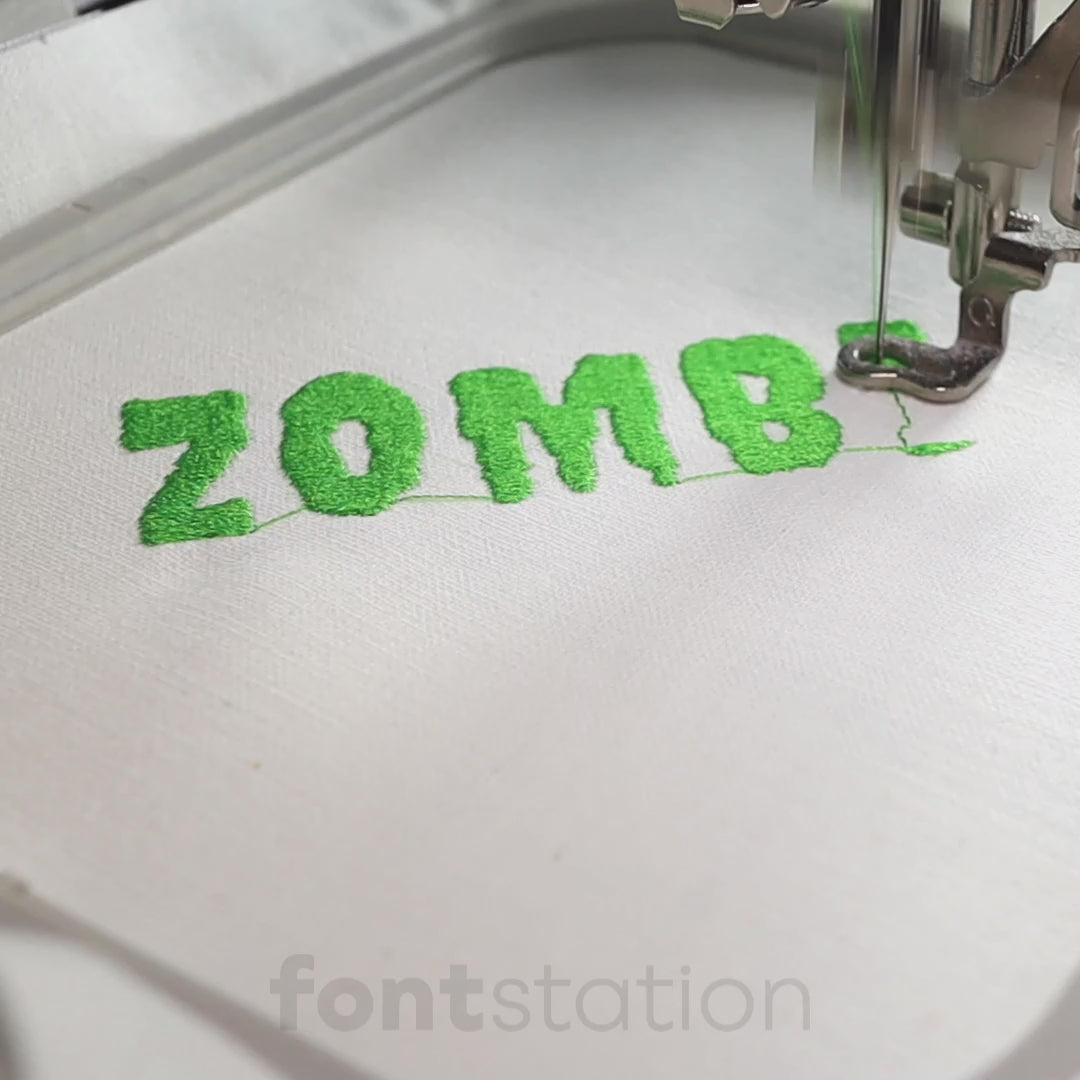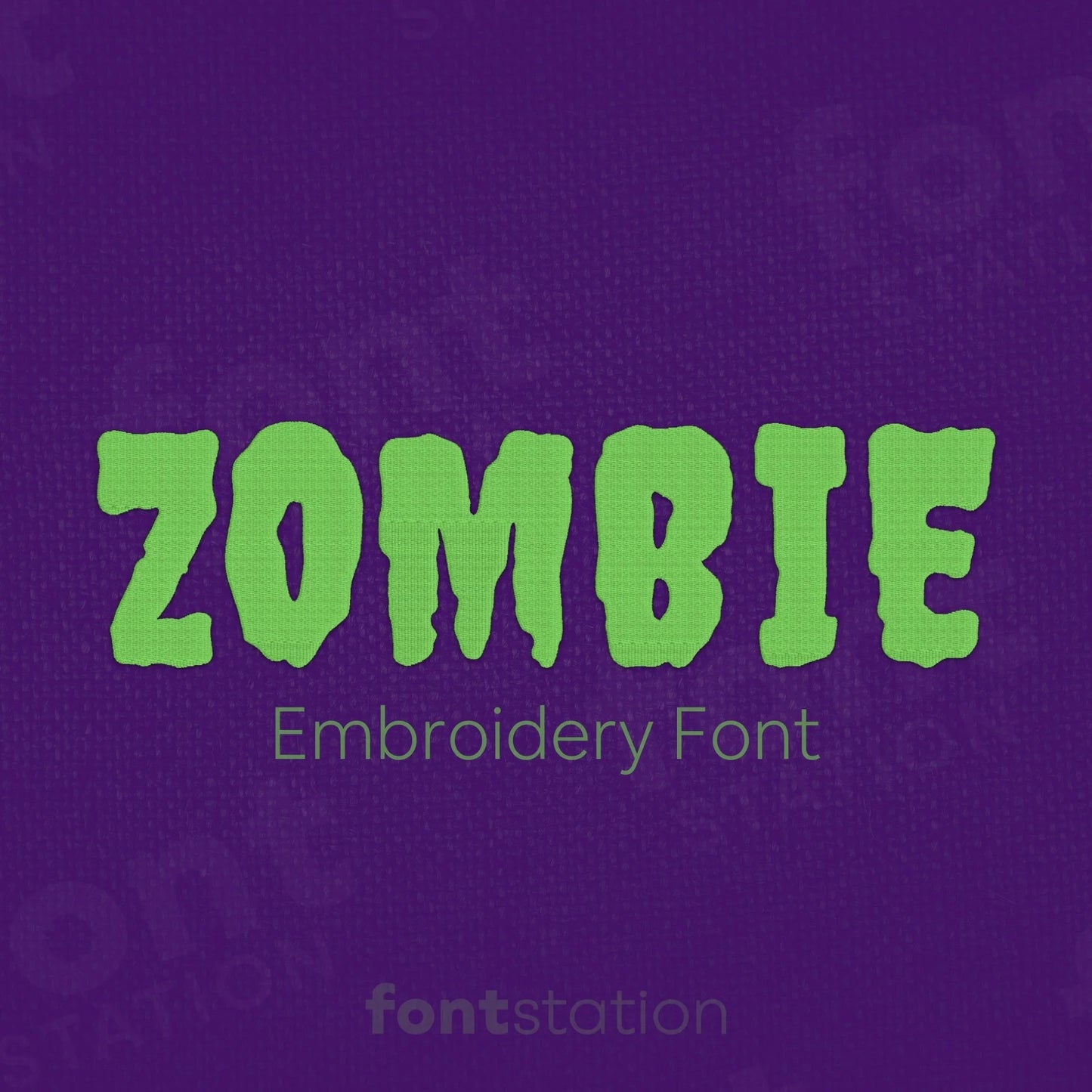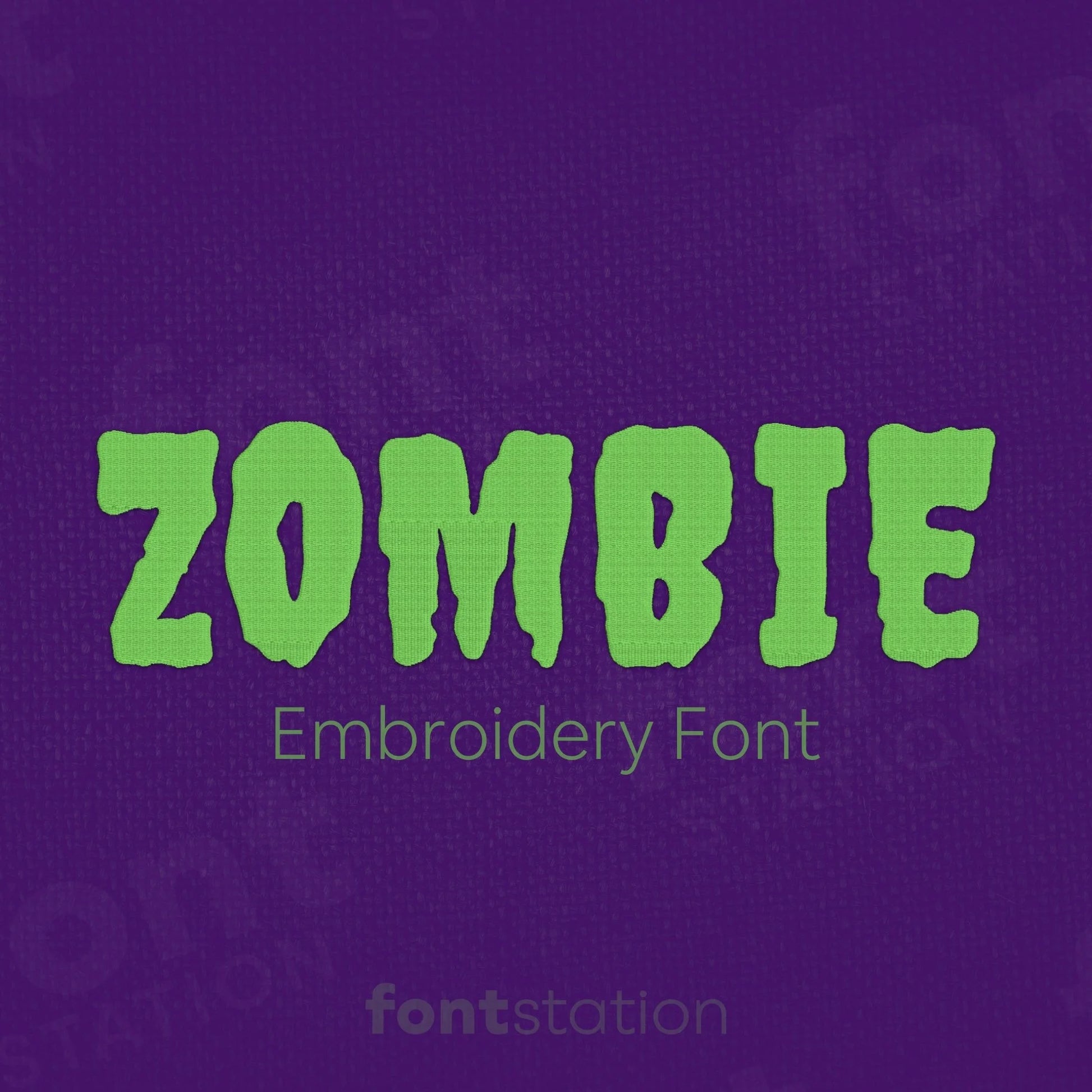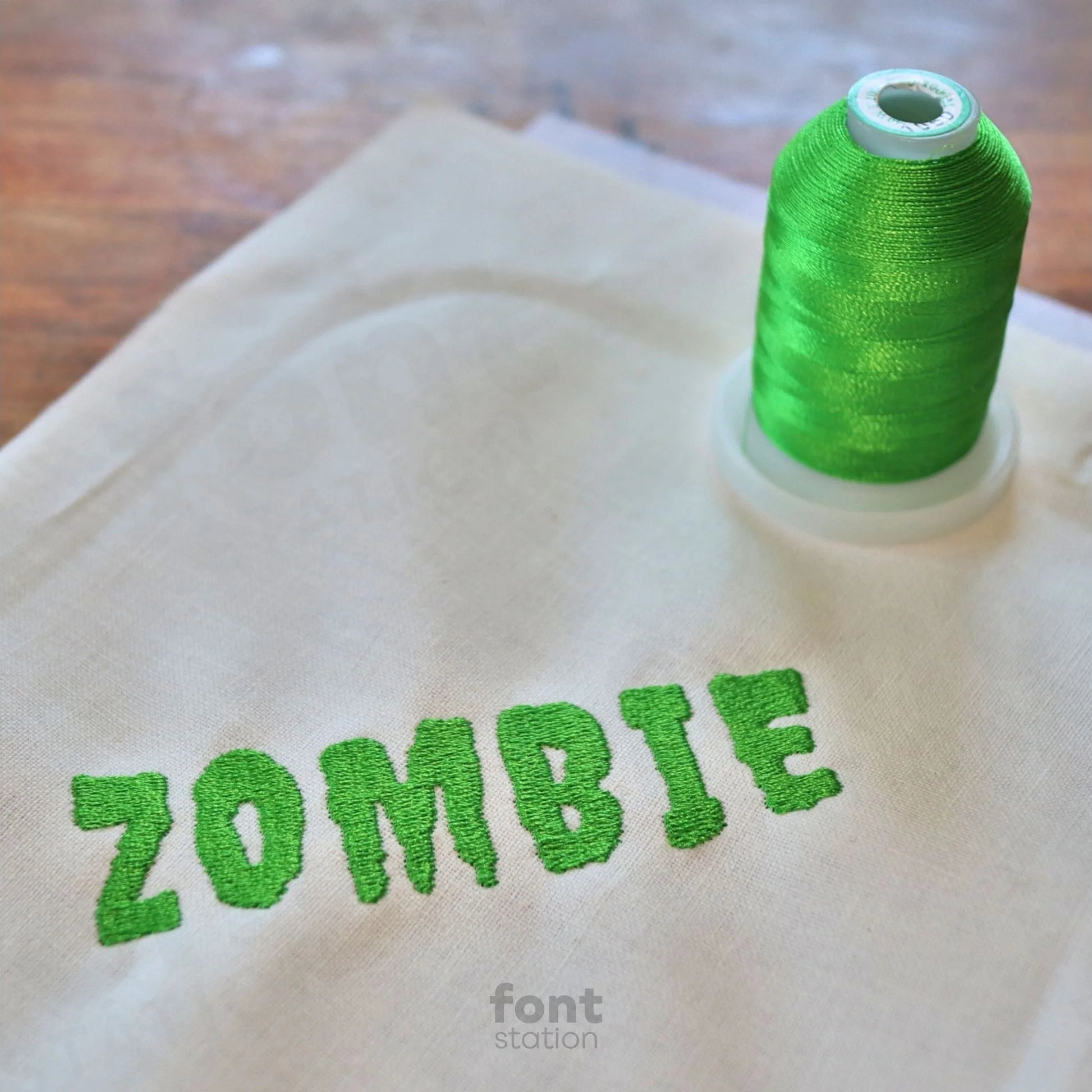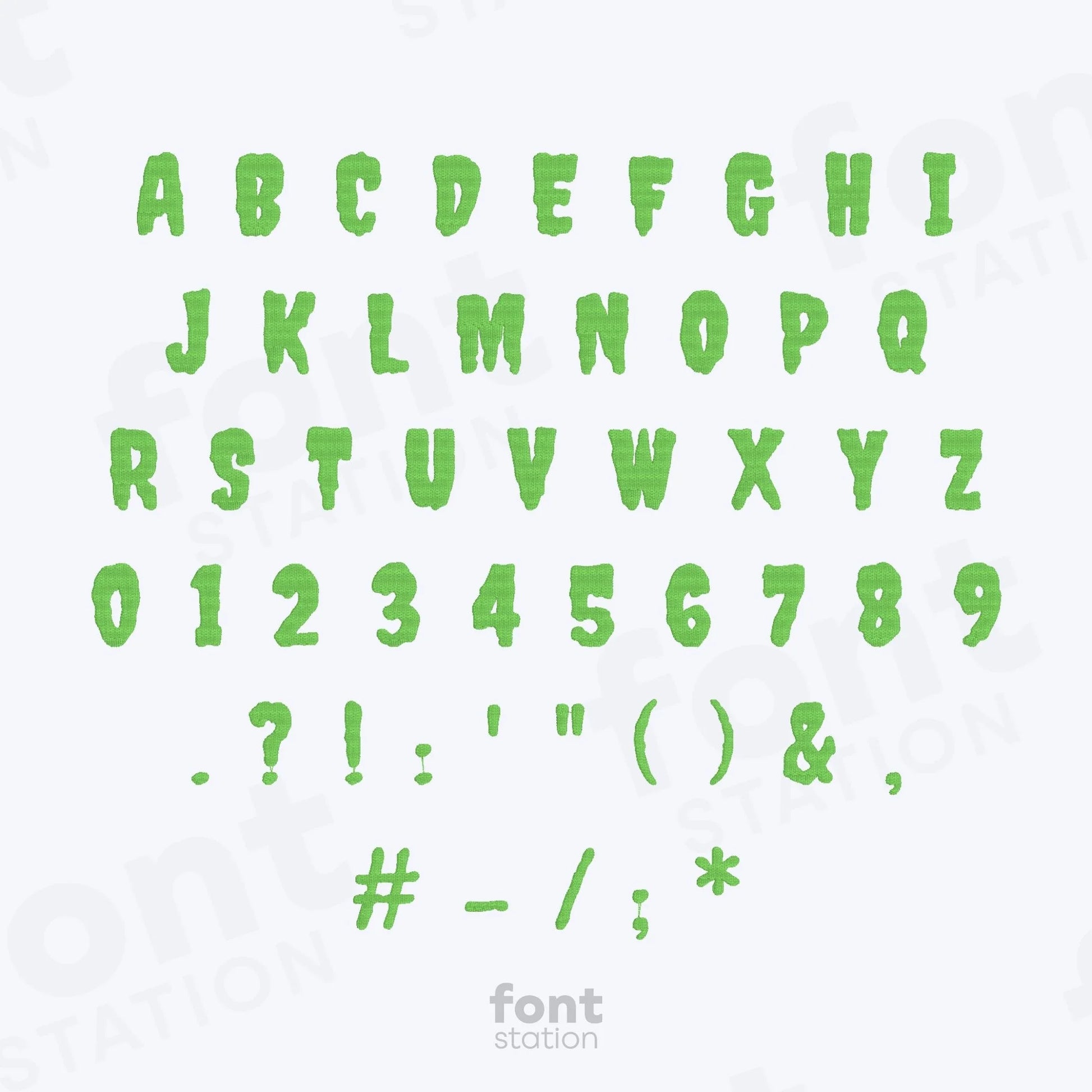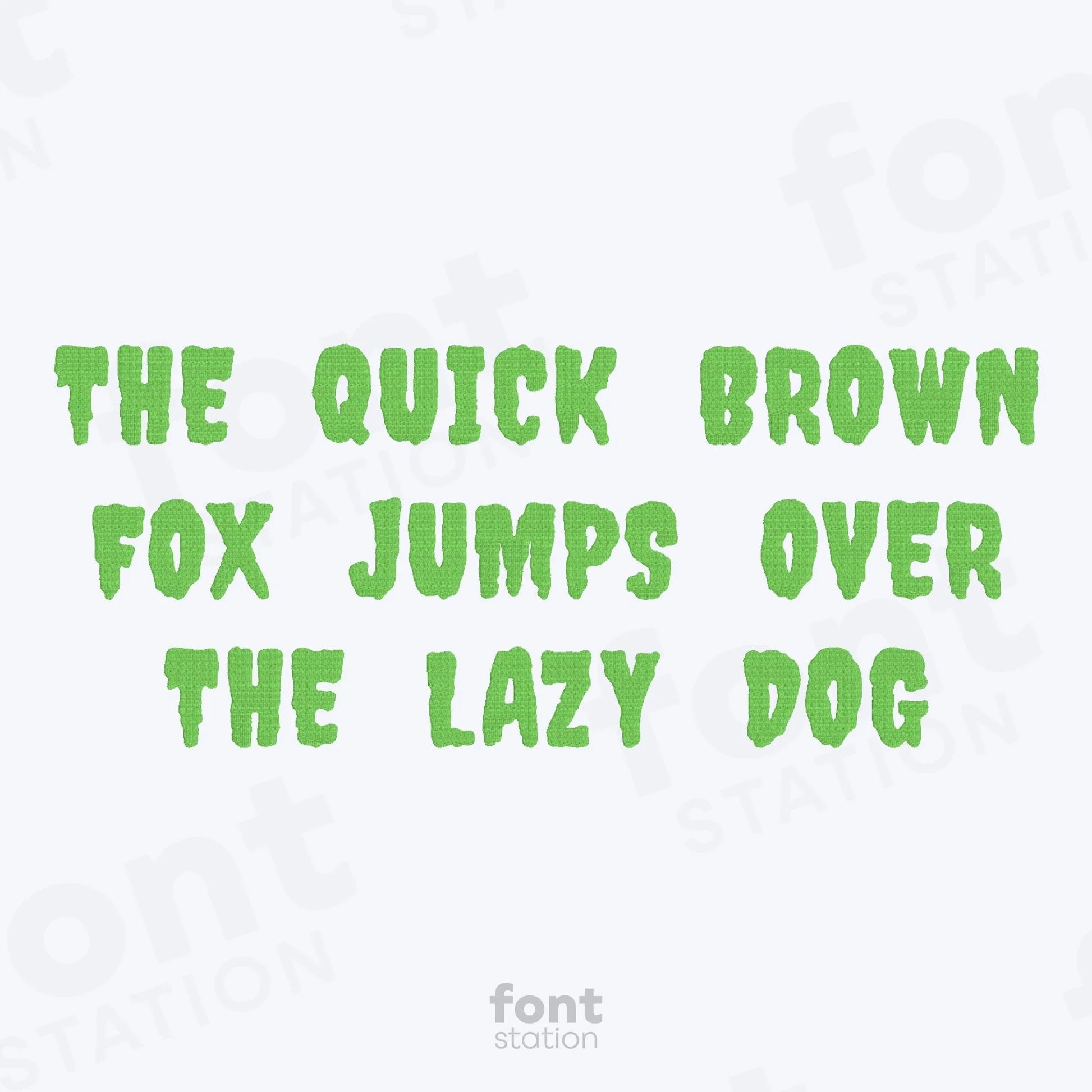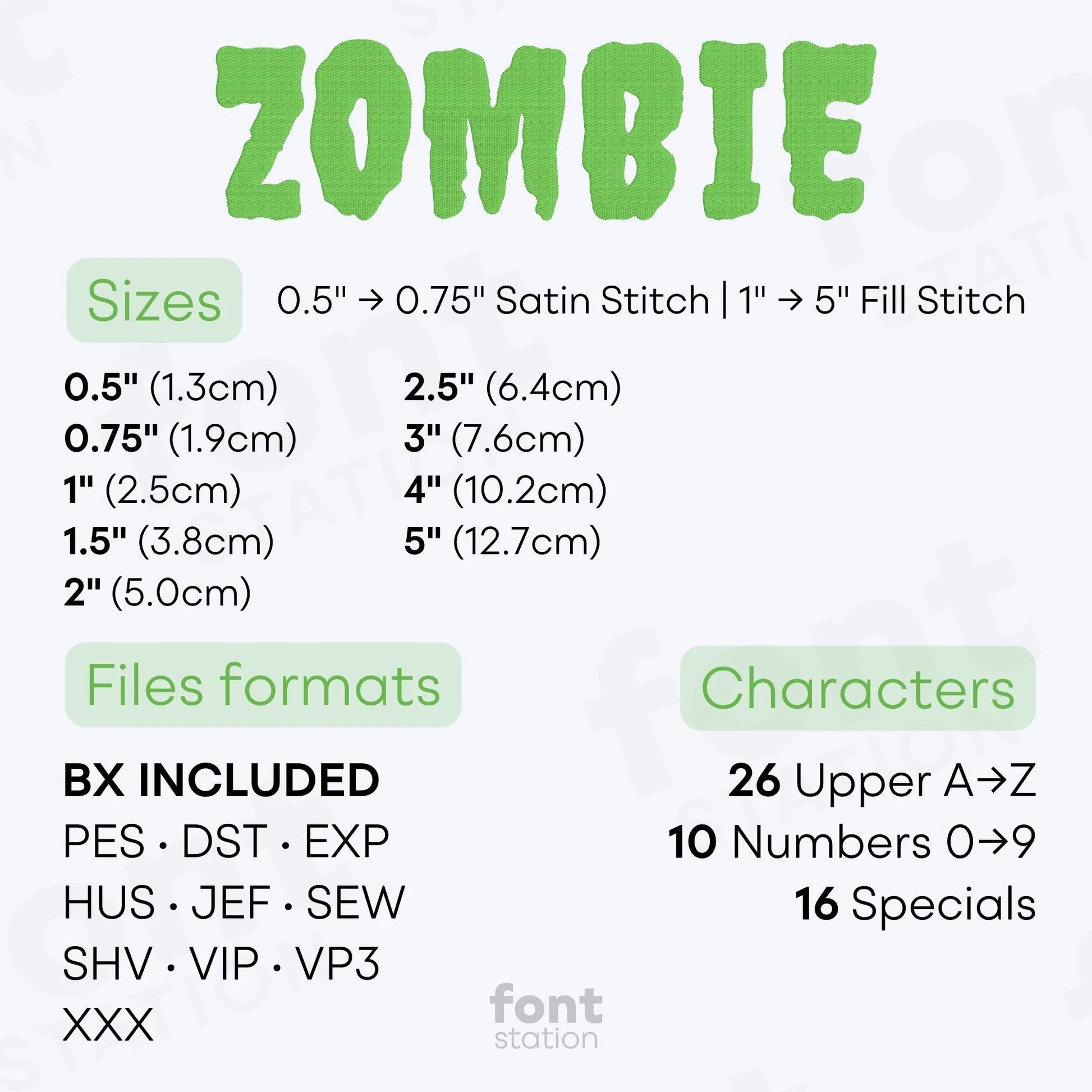
Zombie Embroidery Font
Introducing our Zombie embroidery font, a spooky, melting alphabet perfect for monster-inspired Halloween designs. These bold letters stitch smoothly on your embroidery machine, making it ideal for your next creepy project.
Our Zombie embroidery font oozes spooky style with a melting alphabet perfect for Halloween and monster-themed embroidery projects.
The Zombie embroidery font features a drippy, melting-style alphabet that adds creepy flair to Halloween costumes, spooky signs, trick-or-treat bags, and horror-inspired crafts. These haunting embroidery letters are professionally digitized to stitch smoothly on any embroidery machine, delivering bold, eerie results. Available in BX, PES, DST, JEF, EXP, VP3, and HUS formats, this font is perfect for monster lovers and Halloween creatives.